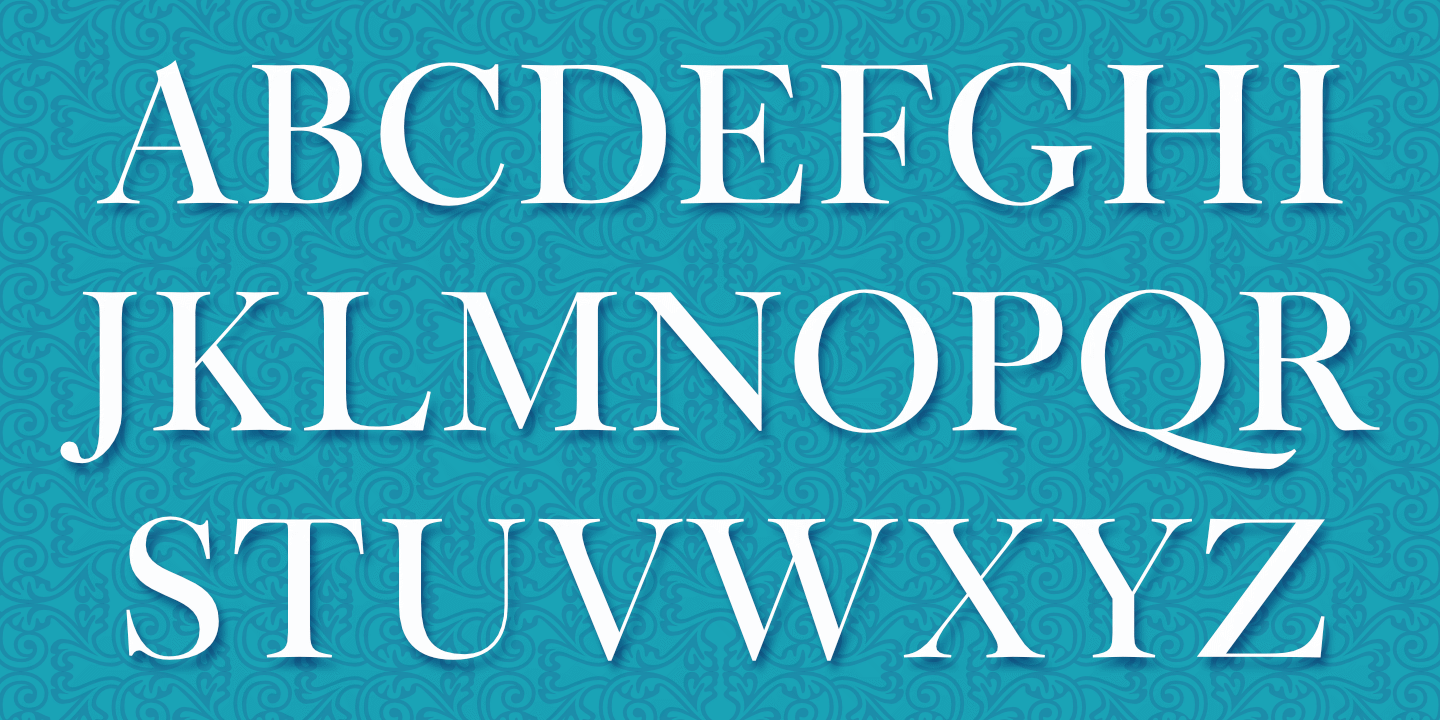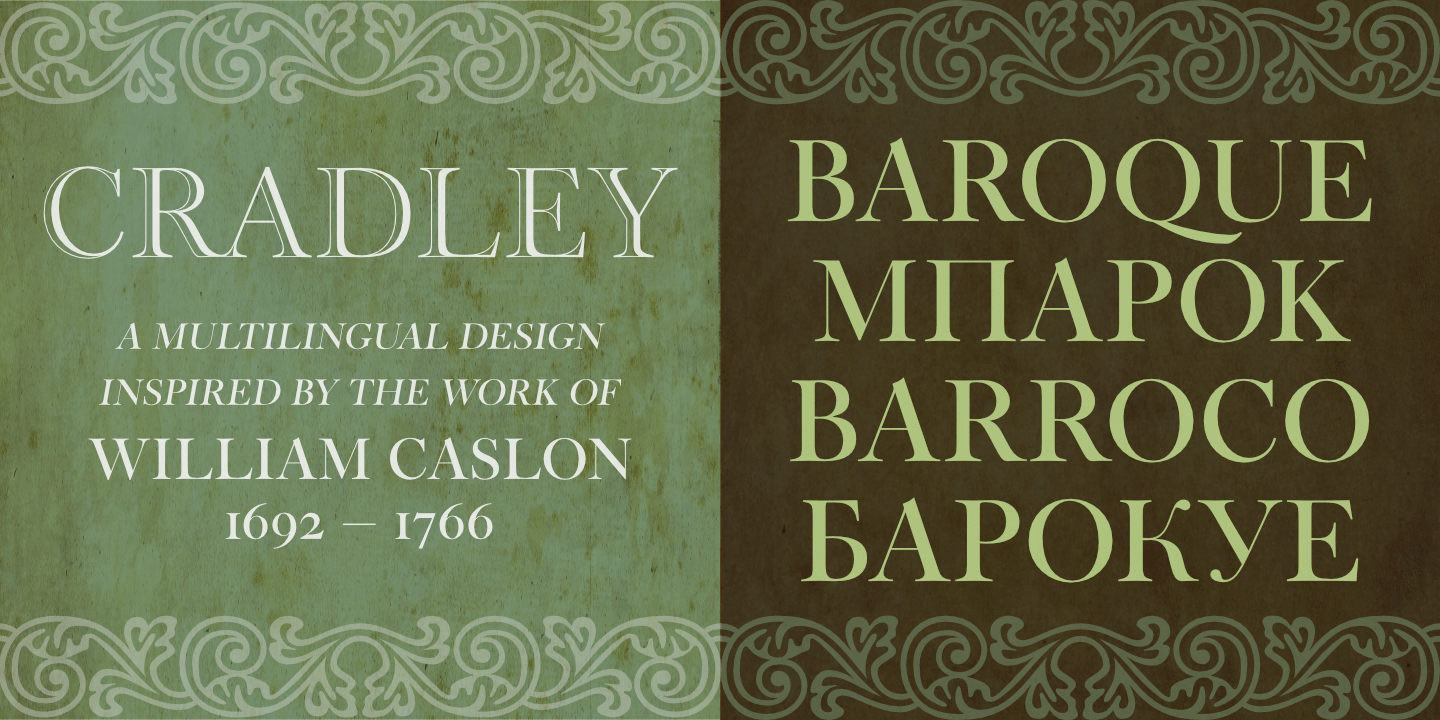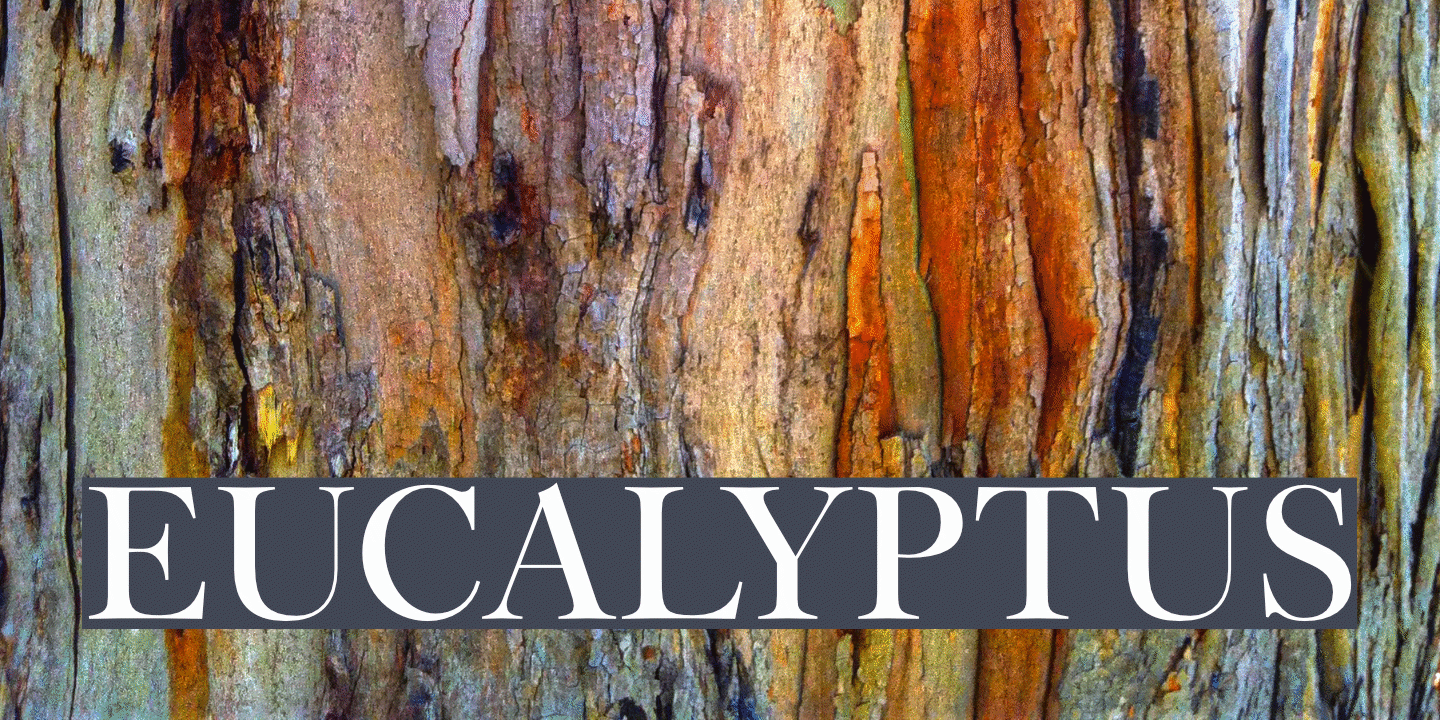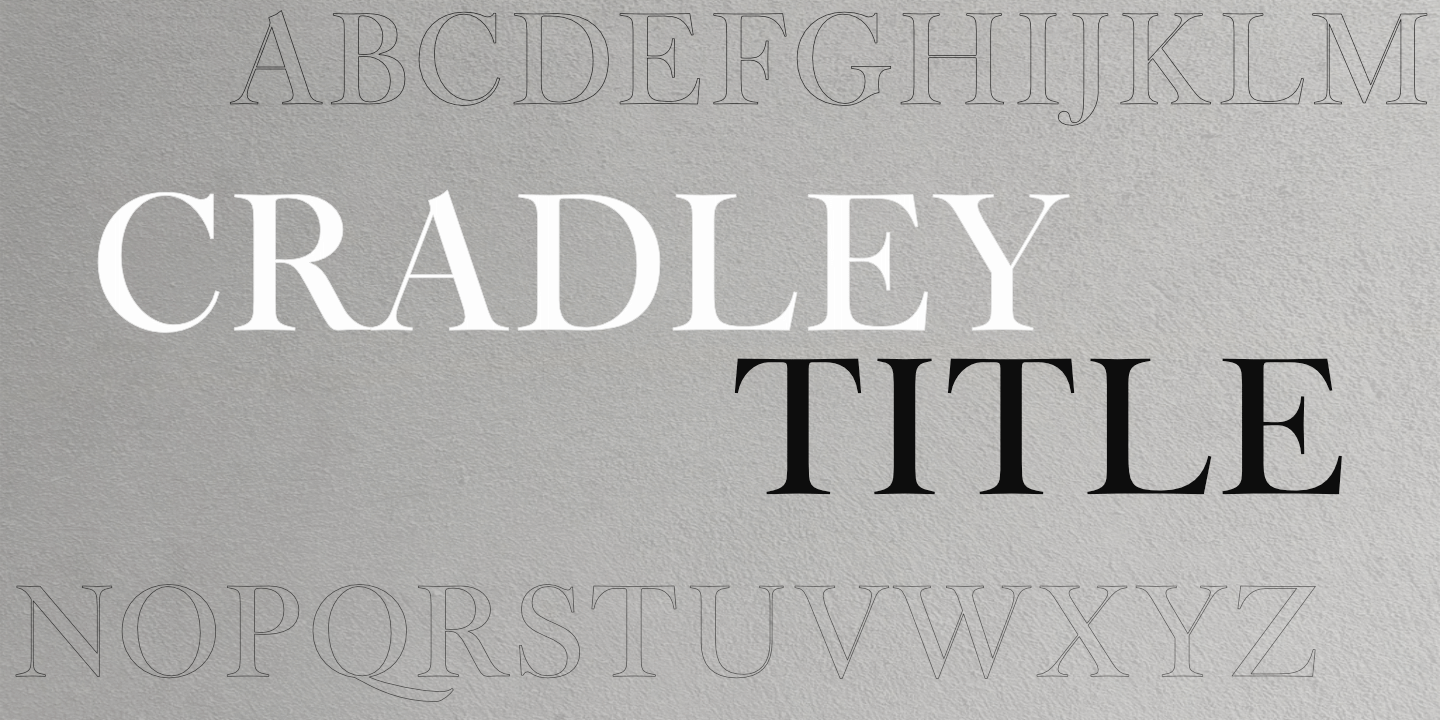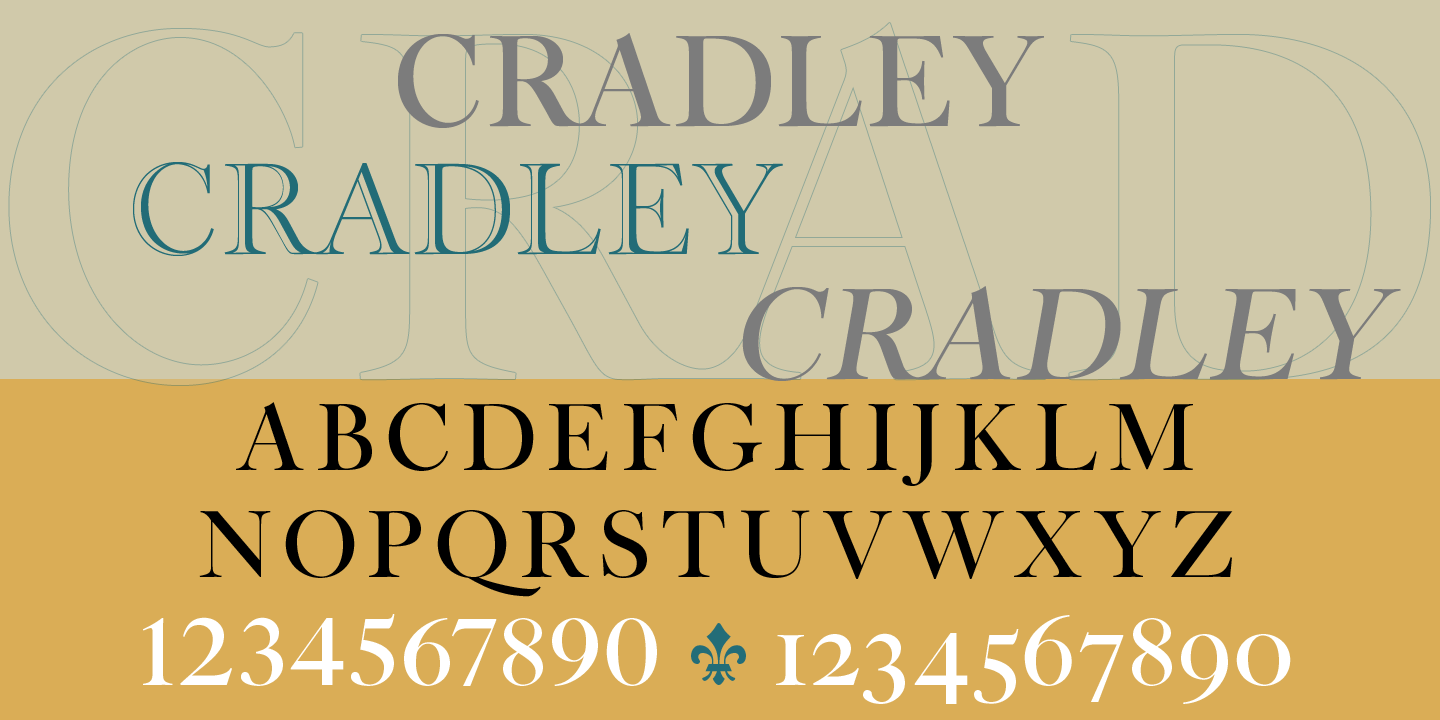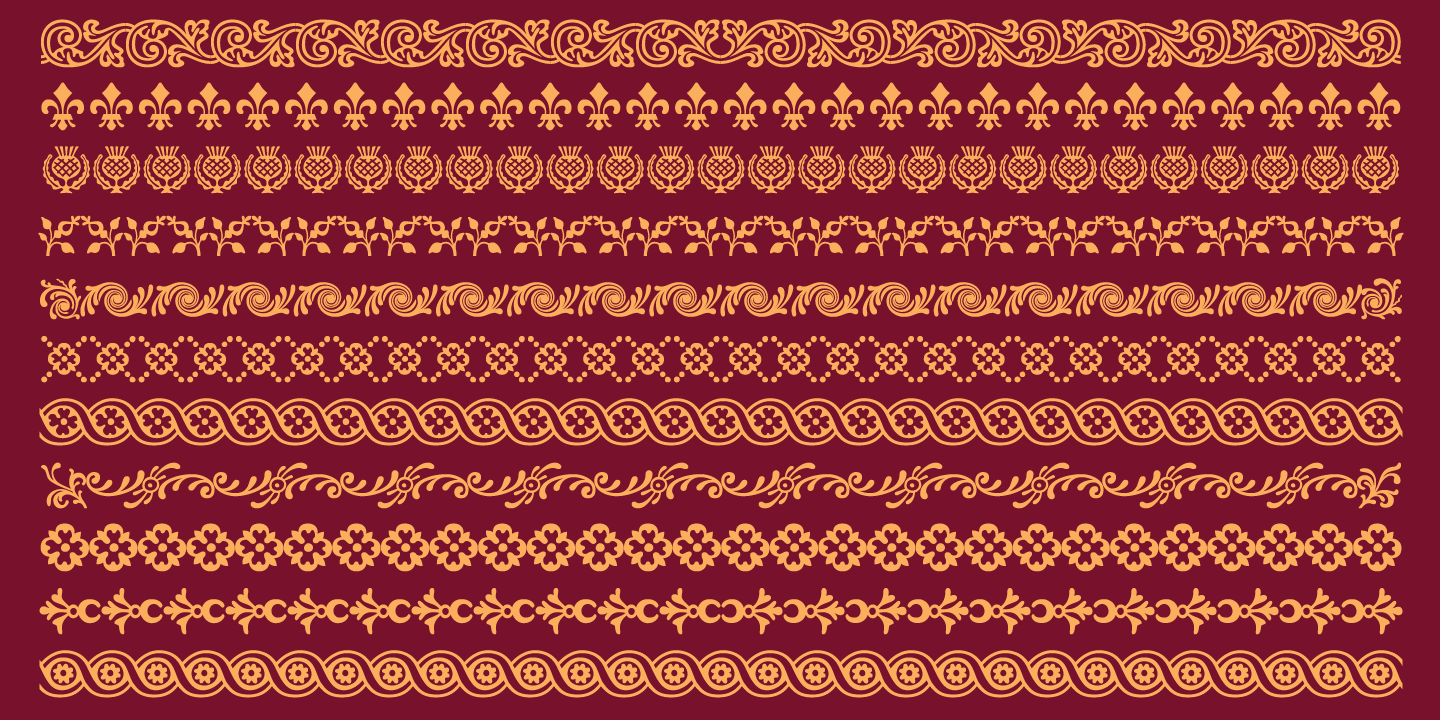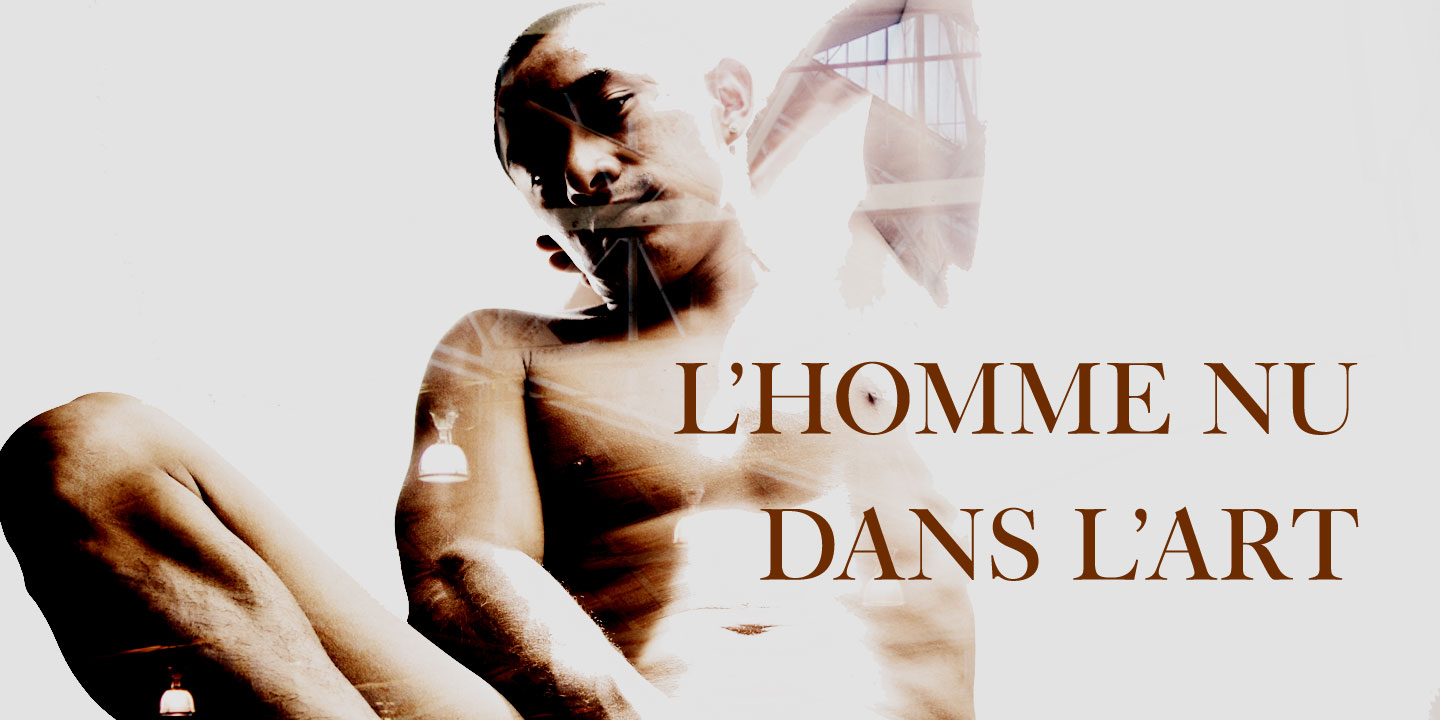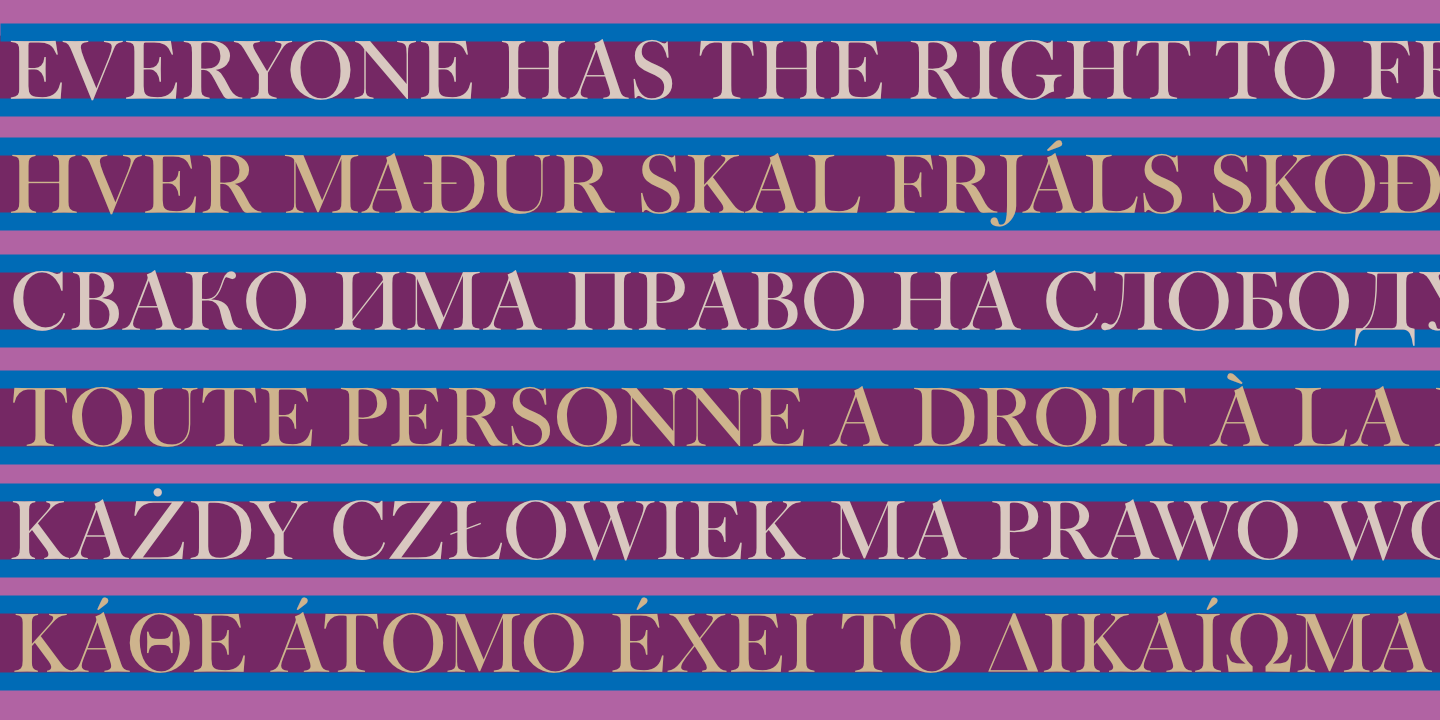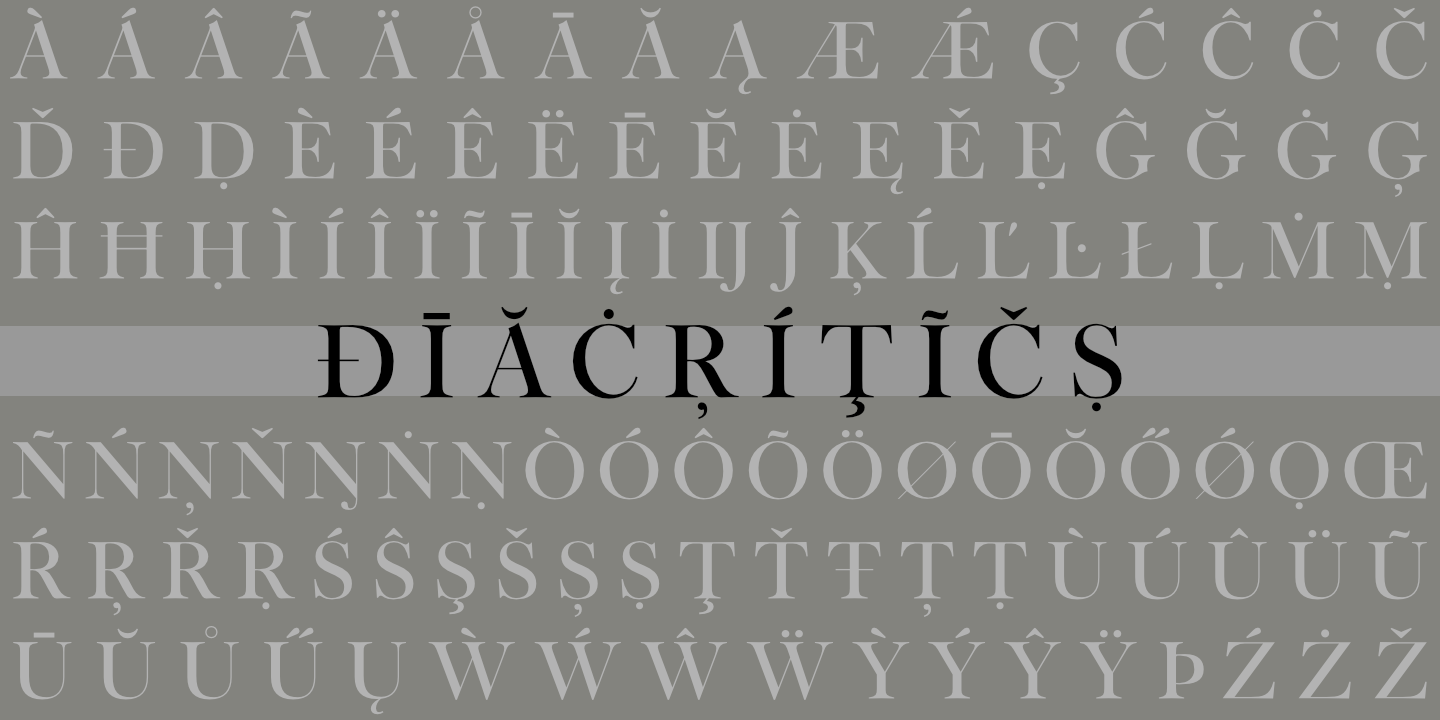
Cradley Title supports most European languages.
Cradley Title supports most languages that use the Cyrillic alphabet.
Cradley Title supports modern (monotonic) Greek.
Cradley Title: Numerals, basic punctuation, currency symbols, and a sampling of ornaments.
Cradley Title supports most European languages.
The Cradley family includes three styles: Title, Open, and Italic.
Cradley Title includes over 30 "flowers," easily accessible via the Ornaments feature.
Cradley supports most European languages, including modern Greek and those that use the Cyrillic alphabet.
Because of its heritage, Cradley is the perfect font for modern performances of Baroque music.